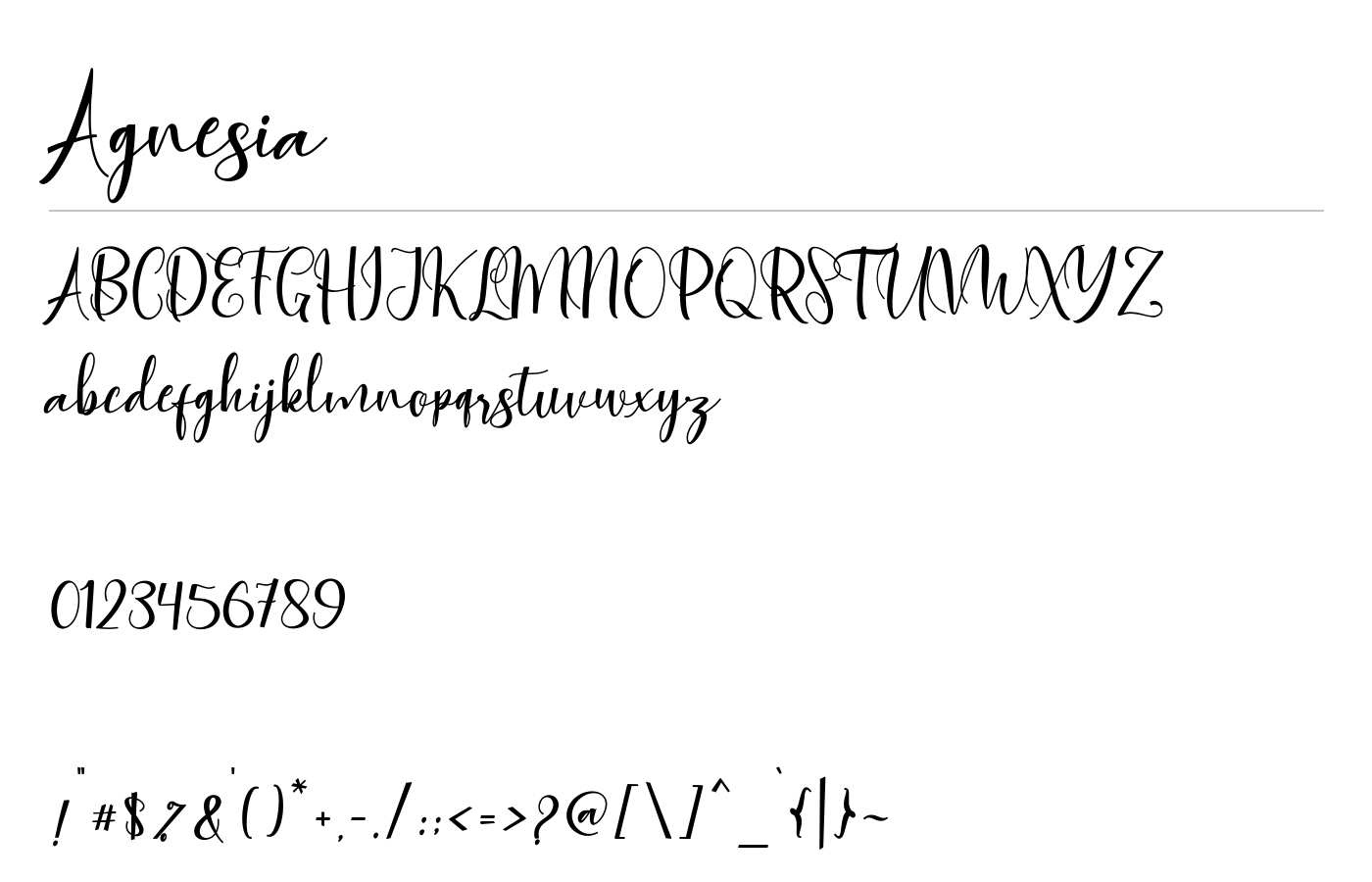
Agnesia is an elegant and playful script font with a handwritten style that features flowing, delicate strokes and a moderate contrast between thick and thin lines. Its tall, slender letterforms and distinctive swashes give it a refined, artistic feel, making it perfect for branding, invitations, and creative projects that seek a personal and stylish touch. This font works well in decorative headlines and logos where a graceful, sophisticated appearance is desired.
Agnesia Font
About Agnesia Font
| Font family | Agnesia Font |
| Designer | Fajriadi |